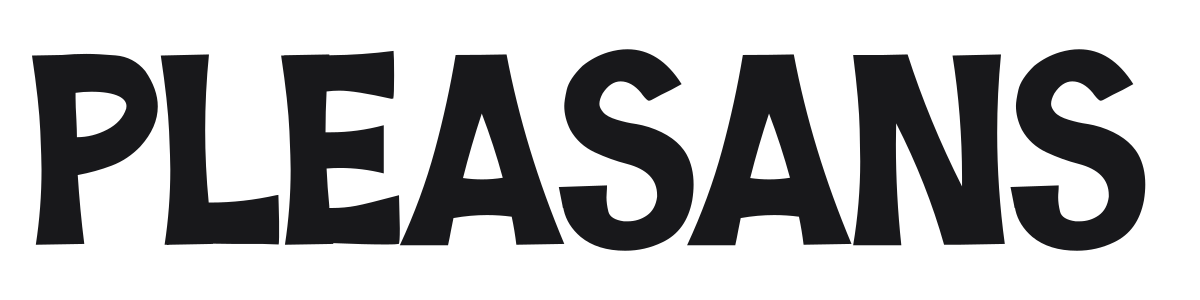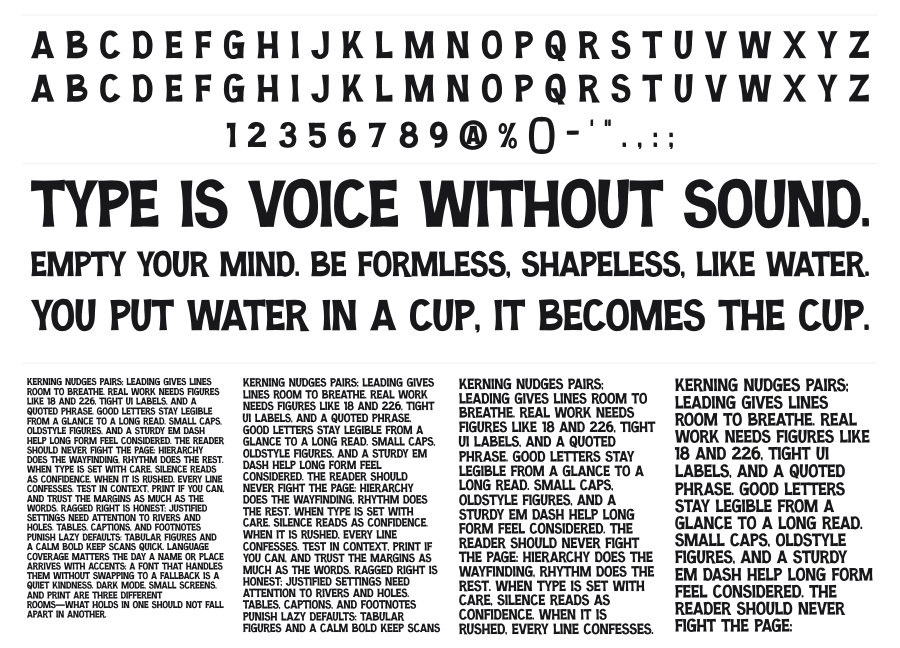
Pleasans
Pleasans is a heavy condensed sans with a hand-stamped, slightly irregular quality that sets it apart from polished grotesques. The uneven edges and subtle character-to-character variation give it an organic, woodblock-print feel. Works well anywhere a bold headline needs energy without feeling too slick.